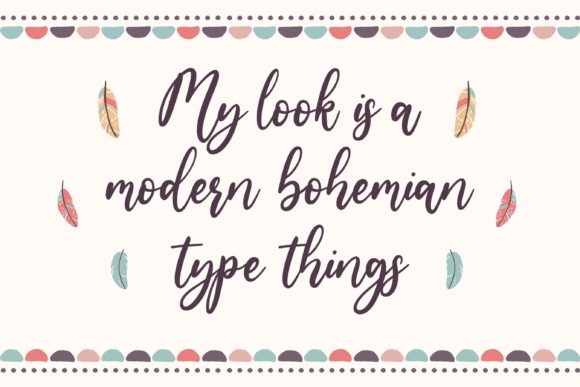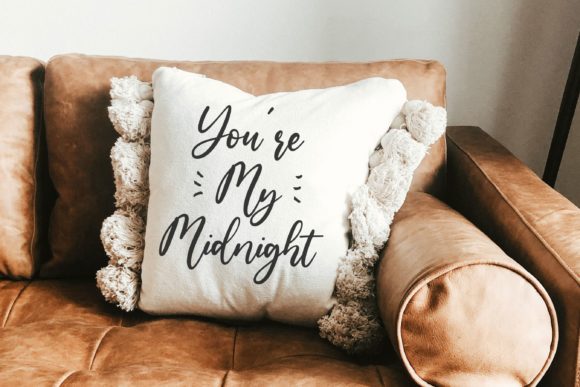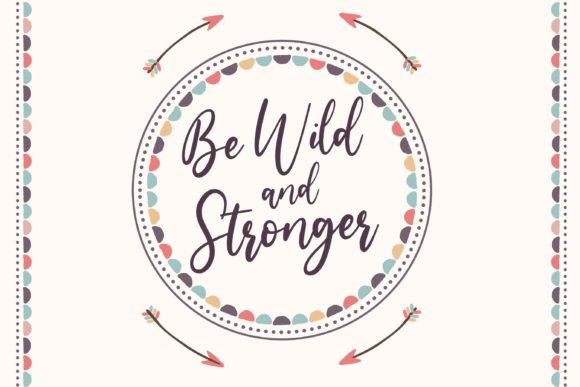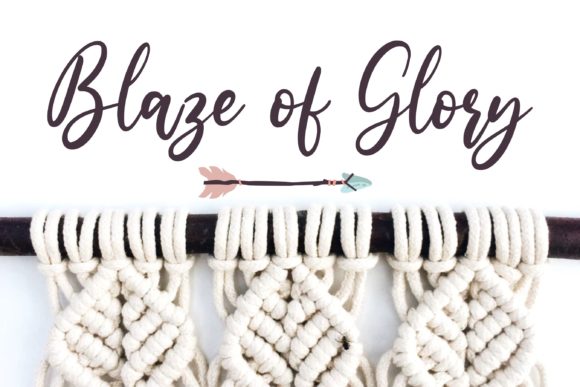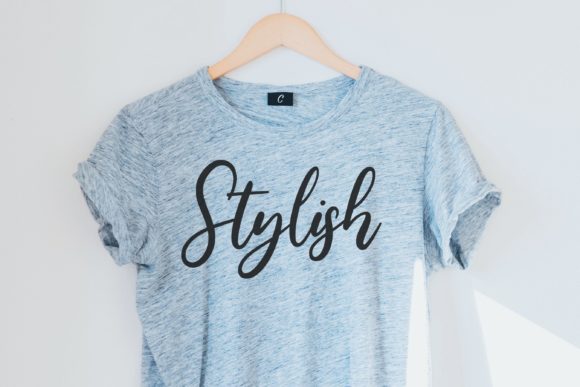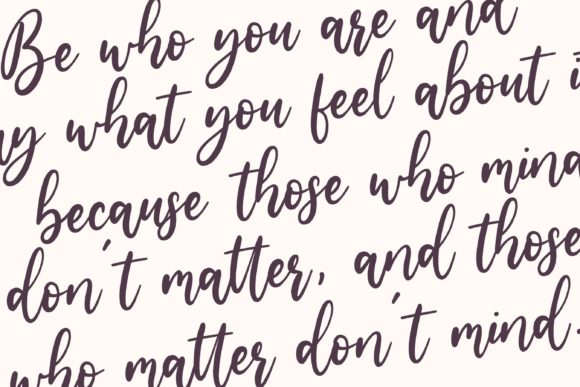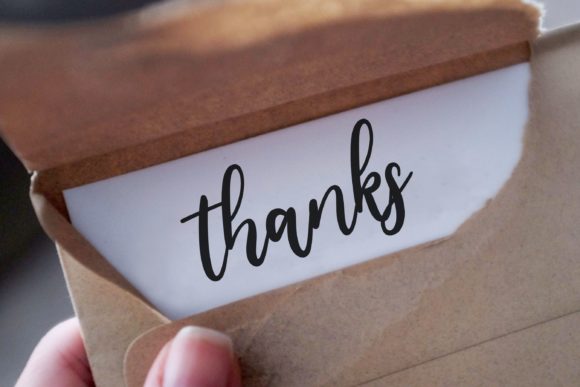
Bowhead Font
About Bowhead Font
Bowhead feels equally charming and relaxed. It looks stunning on wedding invitations, thank you cards, quotes, greeting cards, logos, business cards and every other design which needs a handwritten touch!